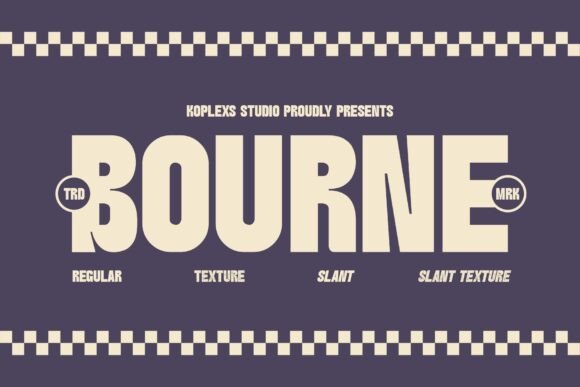
Transform Your Designs with Bourne Font: A Bold Retro Display Typeface
Have you ever been in the middle of a design project, and suddenly, you’re stuck on finding the perfect font? I recall a recent experience where a client asked for a vintage-inspired logo, and I was on a mission to find a typeface that would bring their brand to life. That’s when I discovered Bourne Font, a bold retro display typeface that instantly caught my attention. In this article, we’ll explore the world of Bourne Font, its features, and how to make the most of it in your creative projects.
A Personal Encounter with Bourne Font
I was working on a logo design for a new coffee shop, and the client wanted a vintage vibe that would stand out in a crowded market. After hours of searching, I stumbled upon Bourne Font, and it was love at first sight! The clean geometric shapes, retro-inspired details, and versatility of this typeface made it an instant winner. With four styles to choose from – Regular, Texture, Slant, and Slant Texture – I knew I had found the perfect fit for my project.
An Honest Review of Bourne Font
What I Love About Bourne Font
• ✨ Versatility: With four styles to choose from, Bourne Font can adapt to various design themes and projects.
• ✅ Clean Geometric Shapes: The font’s geometric shapes provide a clean and modern look that’s perfect for logos, branding, and more.
• ✅ Retro-Inspired Details: The retro flair adds a touch of nostalgia and elegance to any design.
• ✅ Ease of Use: Bourne Font is easy to work with, even for those who are new to design or typography.
While Bourne Font is an excellent typeface, there are a few minor quirks to be aware of:
• ⚠️ Limited Use in Body Text: Due to its bold and decorative nature, Bourne Font might not be the best choice for body text or lengthy paragraphs.
• 🤔 Texture Styles Can Be Resource-Intensive: The texture styles, while beautiful, may require more processing power or resources, especially when used in large quantities or high-resolution designs.
The Backstory of Bourne Font
Bourne Font was designed with the intention of capturing the essence of vintage typography while infusing it with a modern twist. The designer aimed to create a typeface that would be both bold and elegant, perfect for logos, branding, and creative projects. Inspired by classic retro fonts, Bourne Font brings a touch of nostalgia to any design while maintaining a clean and geometric aesthetic.
Font Name Bourne Font
Author Koplexs Studio
Q: What type of projects is Bourne Font best suited for?
A: Bourne Font is ideal for logos, branding, posters, packaging, merchandise, and more. Its versatility makes it suitable for a wide range of creative projects.
Q: Is Bourne Font suitable for body text or lengthy paragraphs?
A: Due to its bold and decorative nature, Bourne Font might not be the best choice for body text or lengthy paragraphs. It’s better suited for headlines, titles, and short text elements.